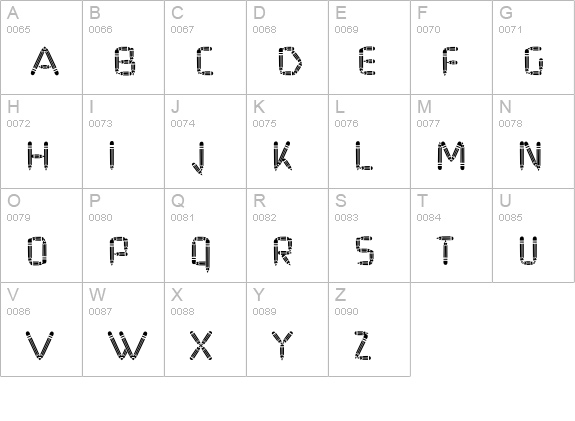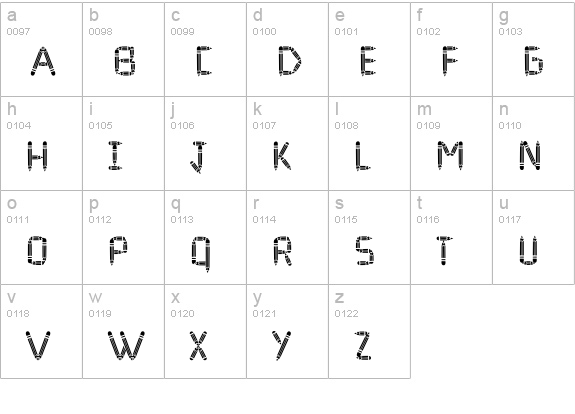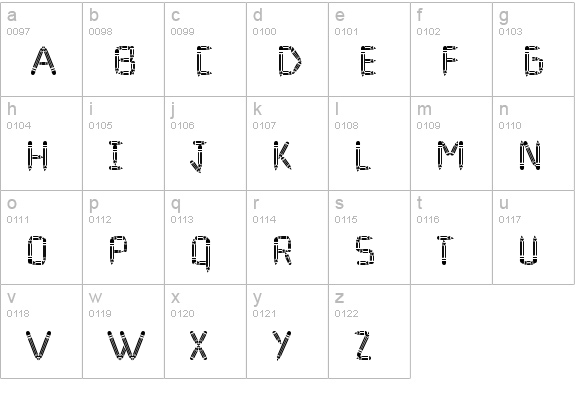
PencilFat Font Details
Introducing PencilFat, a captivating and versatile font that brings a unique and playful twist to your designs. With its bold and chunky strokes, this font exudes confidence and adds a touch of quirkiness to any project. PencilFat is the perfect choice for those looking to make a bold statement. Whether you're designing a logo, creating eye-catching headlines, or crafting attention-grabbing social media posts, this font will ensure that your message stands out from the crowd. What sets PencilFat apart is not only its bold appearance but also its incredible versatility. It can effortlessly transition from a playful and fun aesthetic to a more serious and professional tone, making it suitable for a wide range of design projects. And the best part? PencilFat is available for free! Yes, you read that right. You can freely download this amazing font at FontsMarket.com. Say goodbye to expensive font purchases and hello to creativity without limits. So, what are you waiting for? Embrace the boldness and unique charm of PencilFat and let your designs shine. Download it today and unleash your creativity like never before.